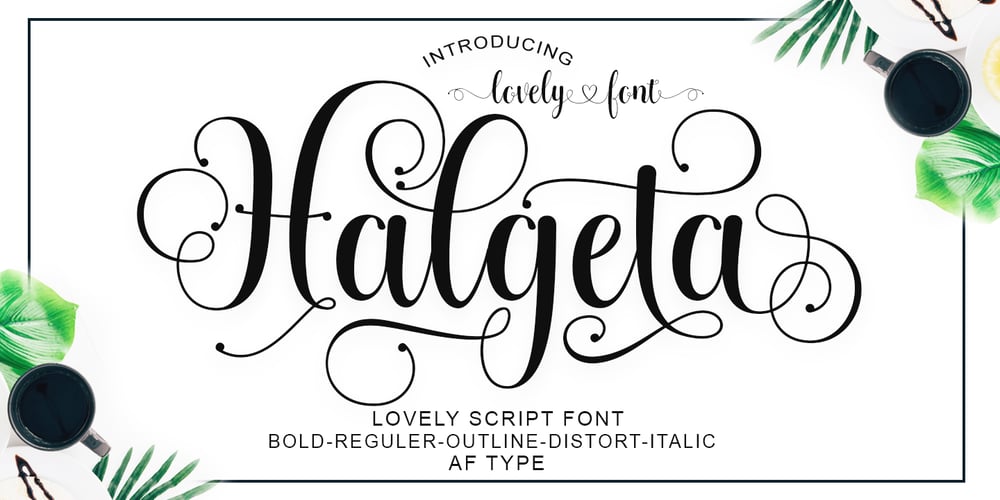
Halgeta Font Family was designed by Al Qausar Firdaus and published by AF Type. Halgeta contains 1 styles and family package options. Meet the slick new calligraphy font – Halgeta. This beautiful script is for those who need elegance and style for their designs and is perfect for wedding invitations, storing date cards, feminine branding and other necessities. This font is modern, simple, but still authentic.Halgeta includes a full set of Basic Uppercase and Lowercase Characters, Numbers and Punctuation. It also contains binders and lots of style alternatives to perfectly recreate natural calligraphy (check the preview to see them all).